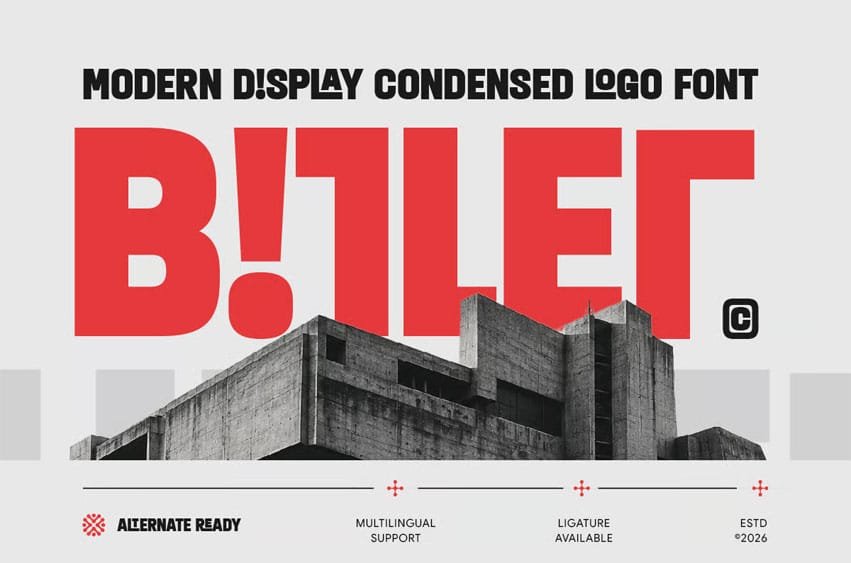
Bitler Font Modern Display Condensed Logo Font Hitler is a modern display condensed logo font designed to deliver bold character, strong visual impact, and a distinctive contemporary identity. Featuring narrow letterforms, clean geometric construction, and a powerful display style, Bitler is perfect for logo design, branding, headlines, posters, packaging, editorial layouts, and modern creative projects.
Combining condensed typography with a bold display aesthetic, Bitler creates a memorable and commanding visual presence. Its streamlined structure helps maximize space while maintaining excellent readability, making it ideal for creative studios, technology brands, entertainment projects, startups, agencies, and modern corporate identities.
Bitler – Modern Display Condensed Logo Font Features:
- Modern condensed display style with bold visual character
- Narrow letterforms with clean and balanced proportions
- Ideal for logos, branding, headlines, posters, packaging, and editorials
- Uppercase, lowercase, numerals, and punctuation included
- Space-efficient construction with excellent readability
- Perfect for startups, agencies, technology, entertainment, and corporate branding
Create a bold and distinctive visual identity with Bitler – the modern condensed display font crafted for impactful logo and branding design.